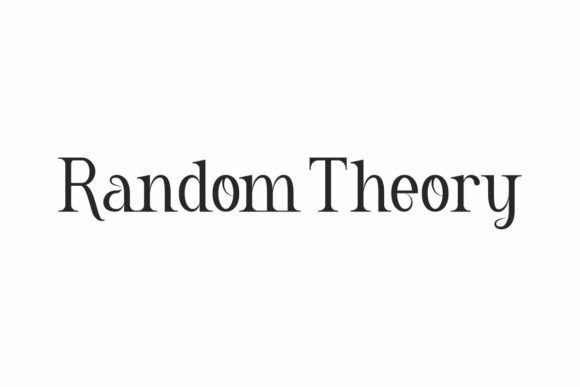
Dive into a world of captivating designs with Random Theory Font, the ultimate solution for your creative pursuits. This elegant serif font, crafted by NihStudio, exudes a charm like no other, featuring alluring curly lines that add a touch of playfulness to your designs. Suitable for a myriad of industries, including clothing, cosmetics, fashion, and real estate, Random Theory Font is your go-to choice for making a lasting impression.
Unleash your creativity and watch your designs flourish with this visually stunning font. Whether you're crafting billboards, brand logos, or eye-catching packaging, Random Theory Font is your secret weapon for capturing attention and leaving an unforgettable mark. With its wide range of applications, from signage and stationery to titles and quotes, this font's versatility is truly remarkable.
Experience the joy of effortless pairing, as Random Theory Font seamlessly complements other fonts without compromising readability. Its comprehensive character set, including uppercase and lowercase letters, numbers, punctuation, symbols, ligatures, and multilingual support, ensures that your creative vision knows no bounds.